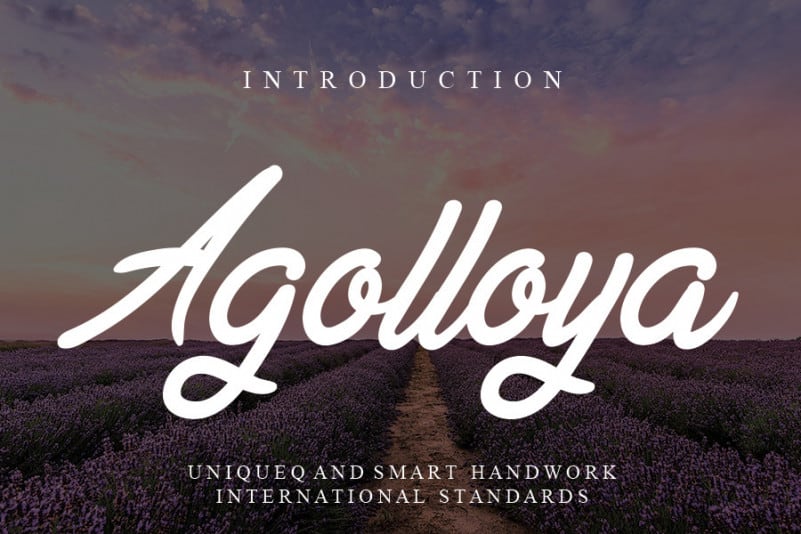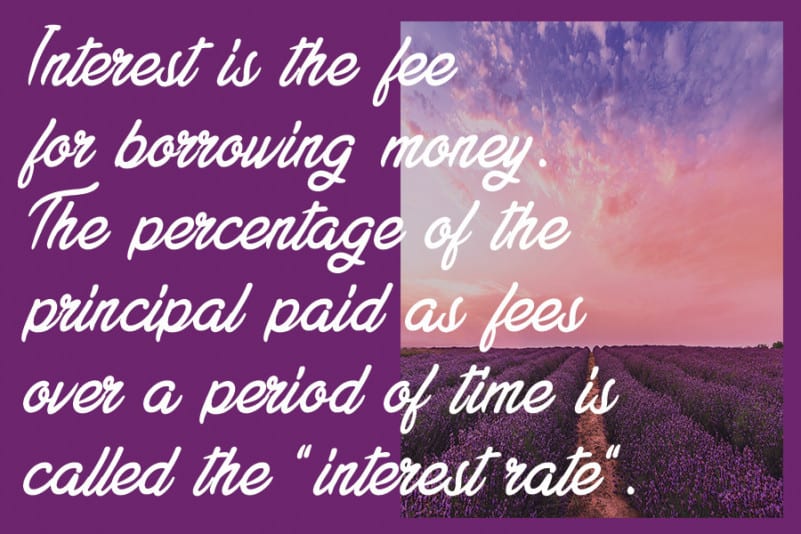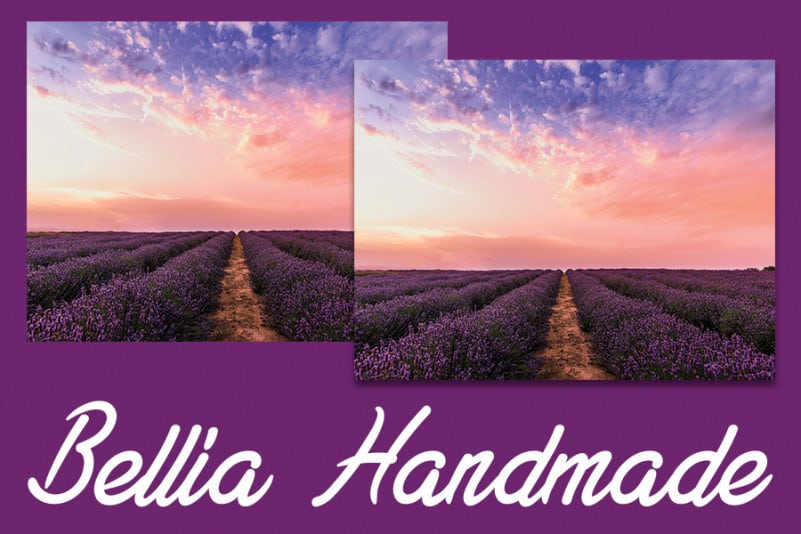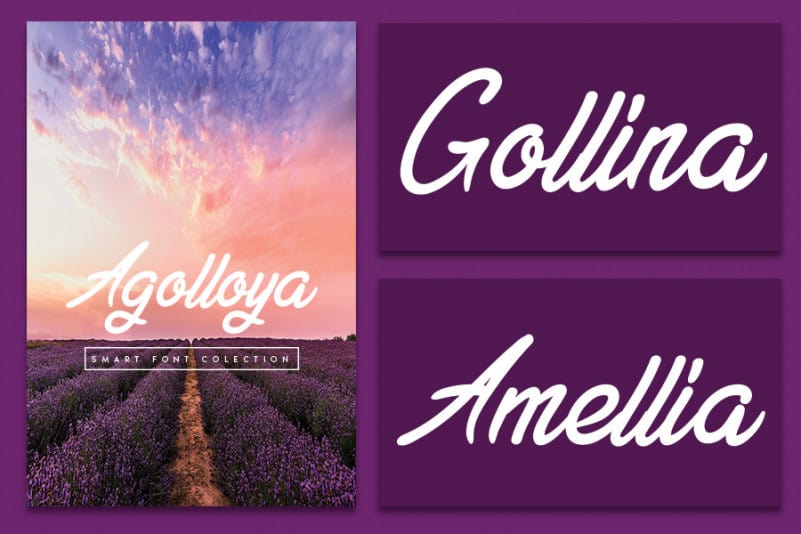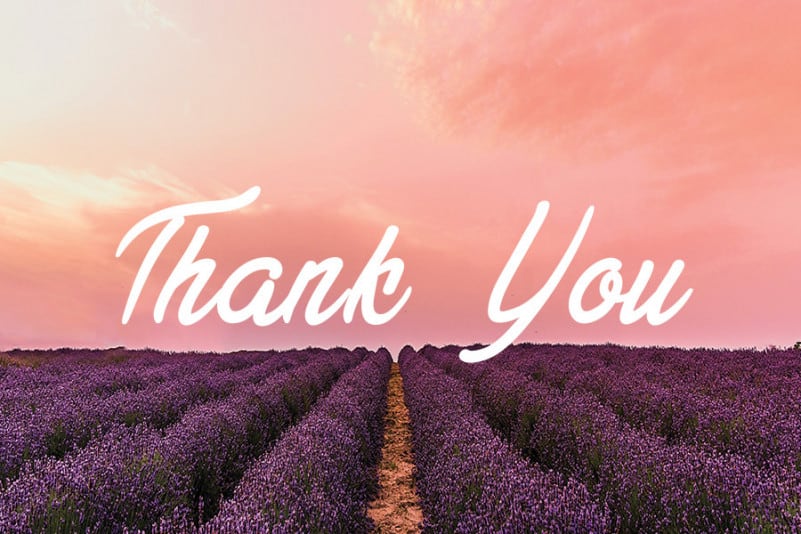
Agolloya Handwritten Font
Agolloya Handwritten Font is a great handwritten typeface. It maintains its classy calligraphic influences while feeling contemporary and fresh. This versatility will appeal to a wide range of crafty ideas, from letterheads and titles, to stationery.